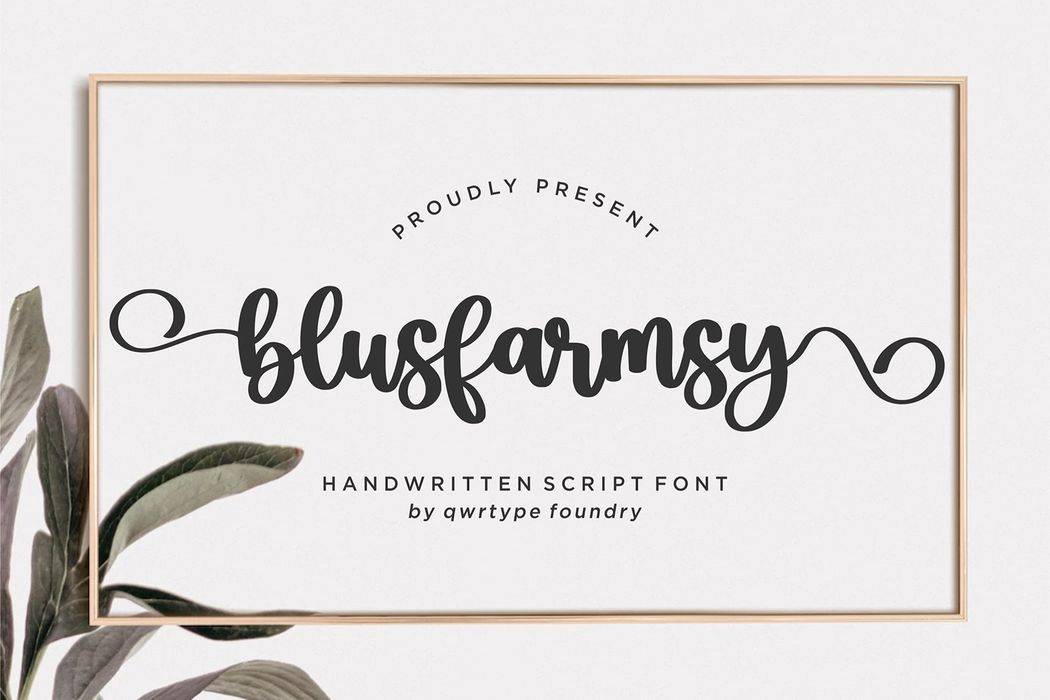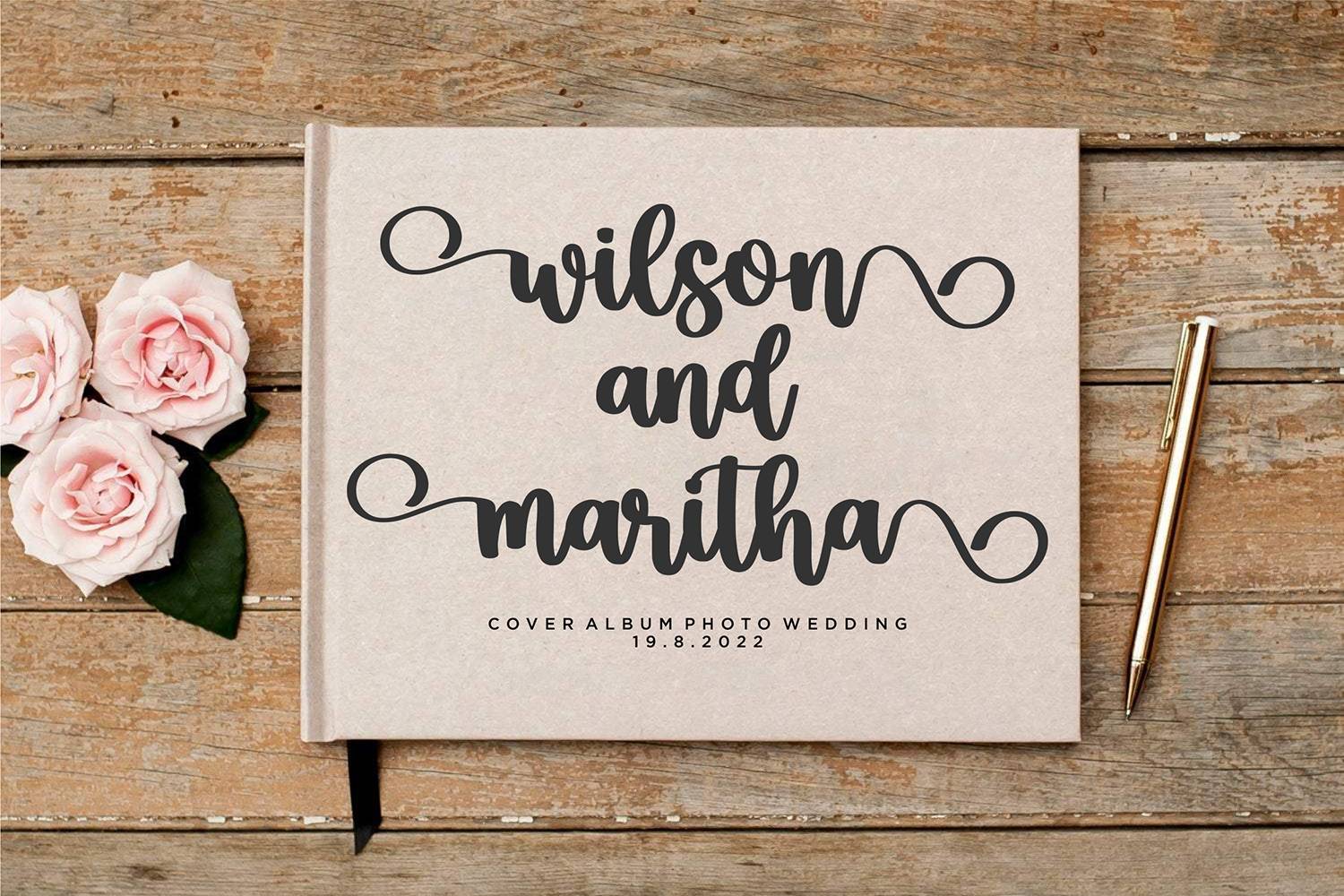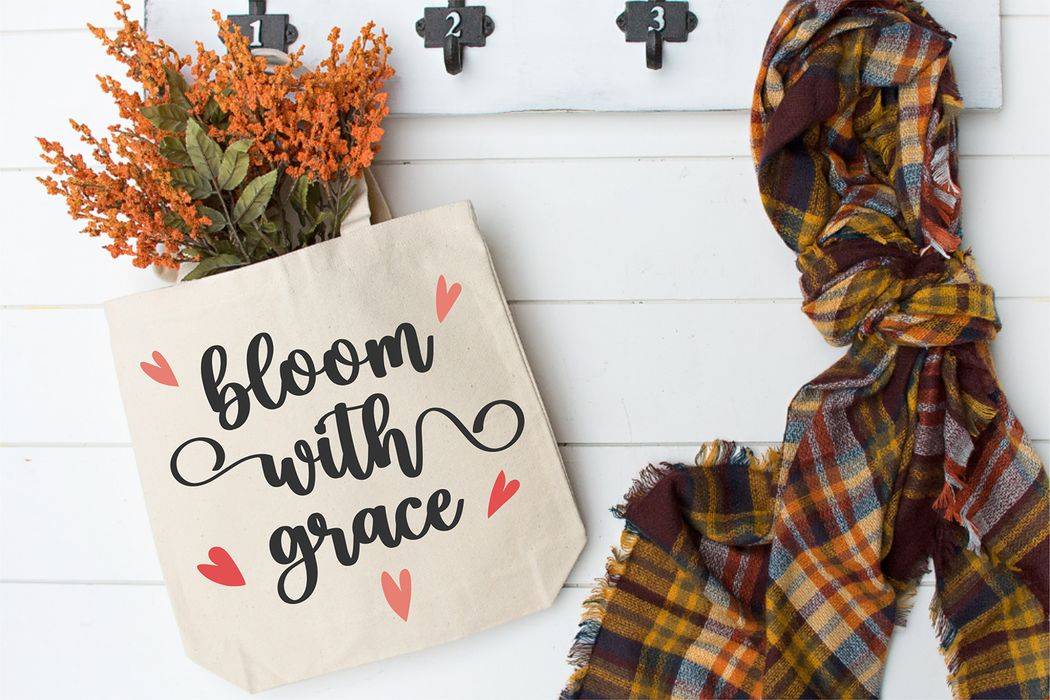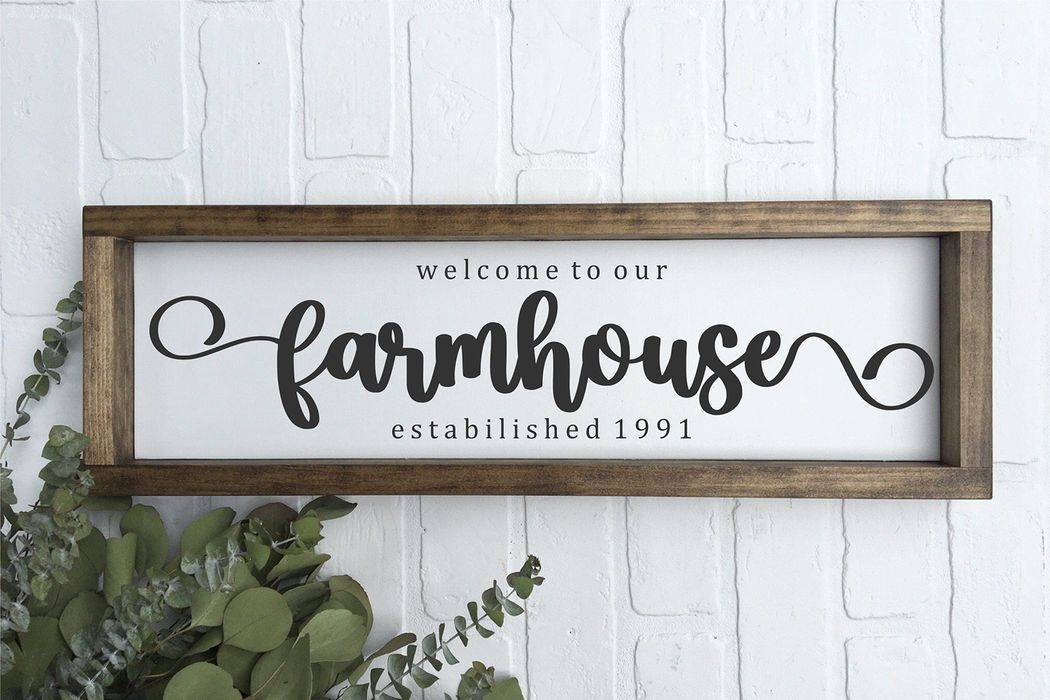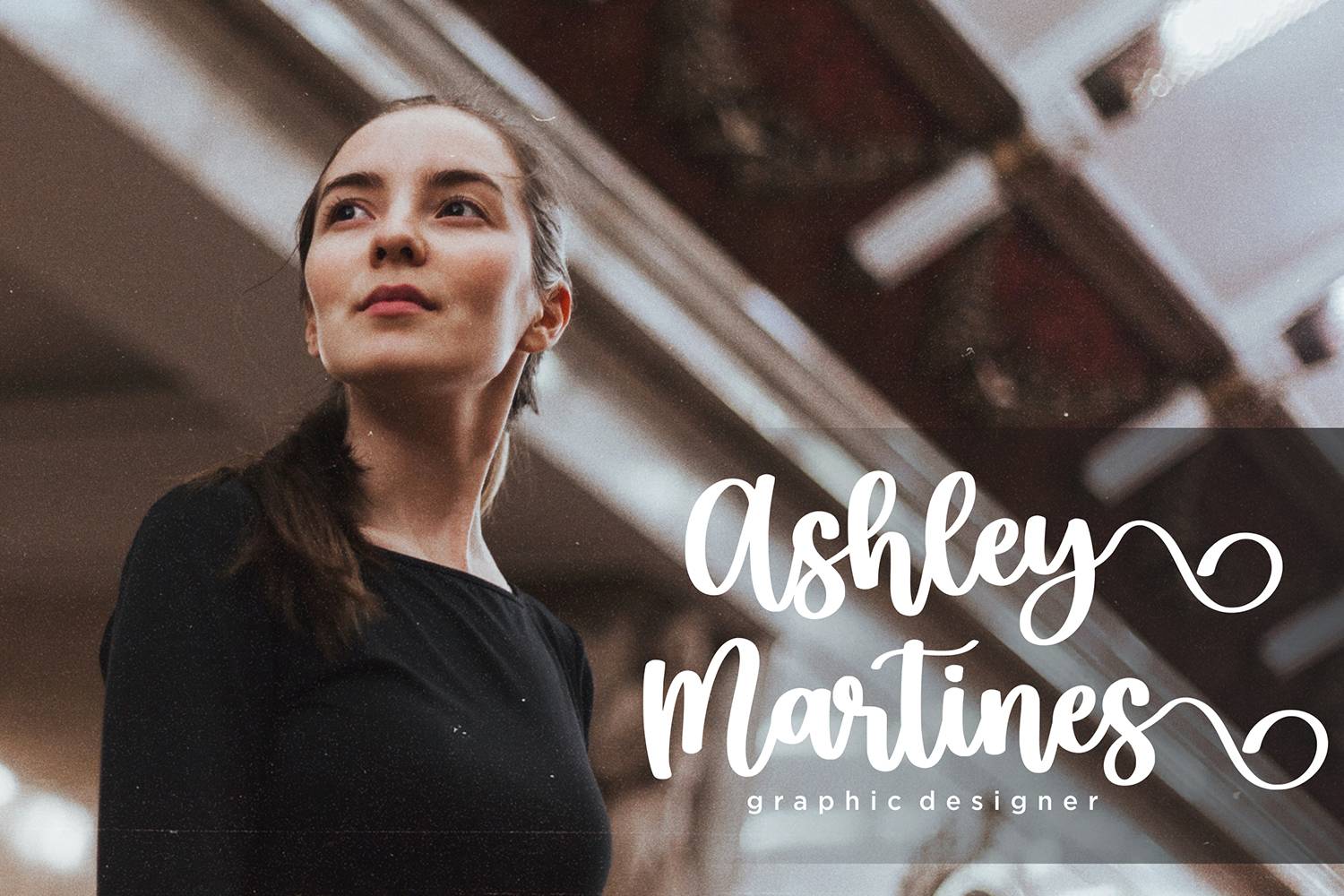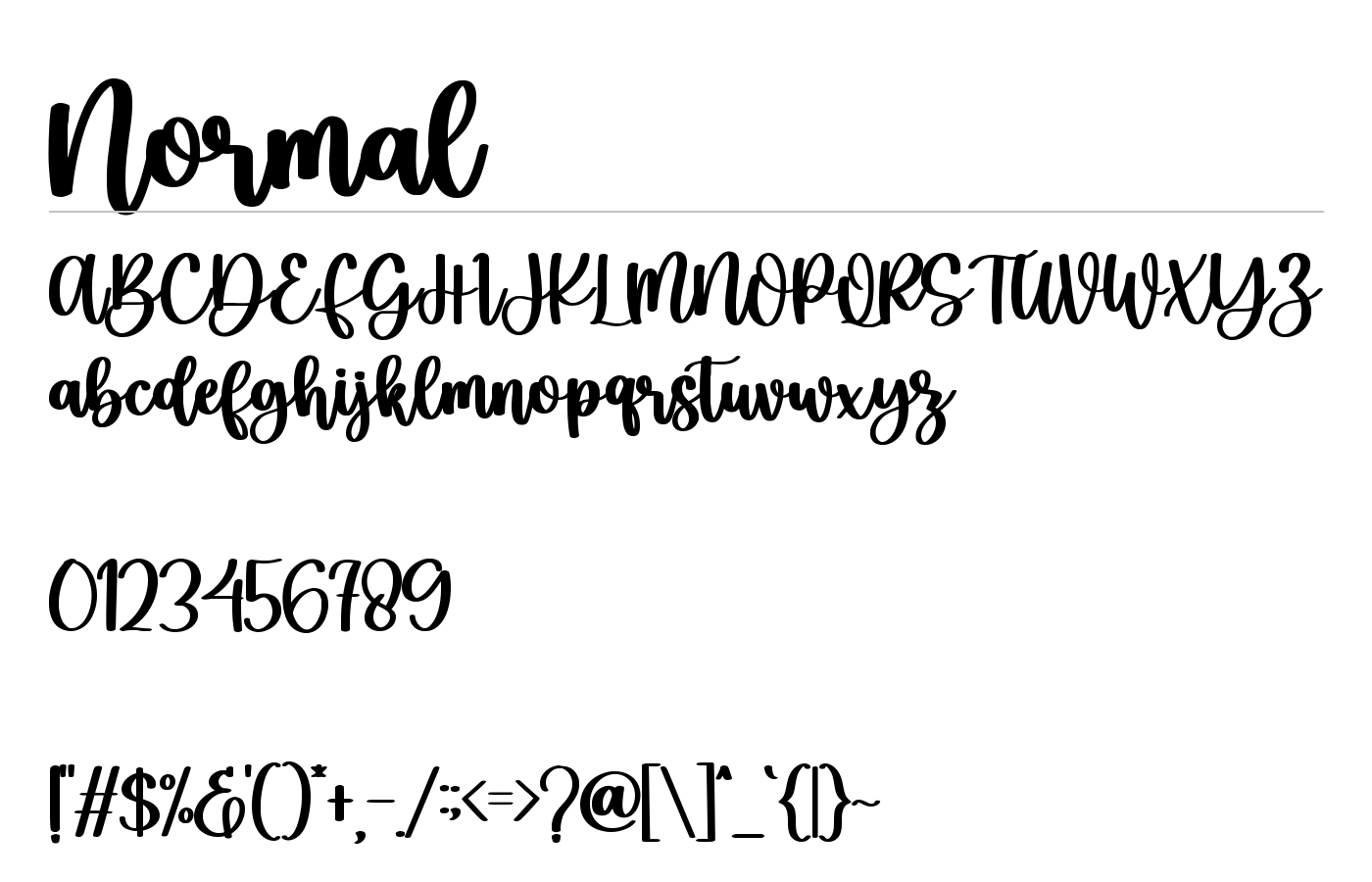
Blusfarmsy is a lively and stylish script font with a warm, hand-lettered feel, featuring smooth, flowing strokes and a medium weight that balances readability with personality. Its rounded, friendly forms and distinctive letter connections make it perfect for creating inviting, playful designs. This font works beautifully in branding, invitations, and any creative projects seeking a charming and approachable look.
Blusfarmsy Font
About Blusfarmsy Font